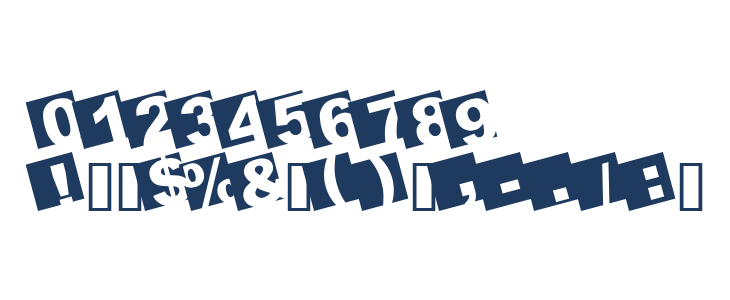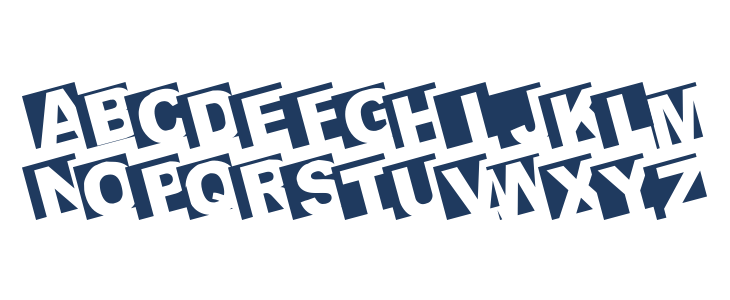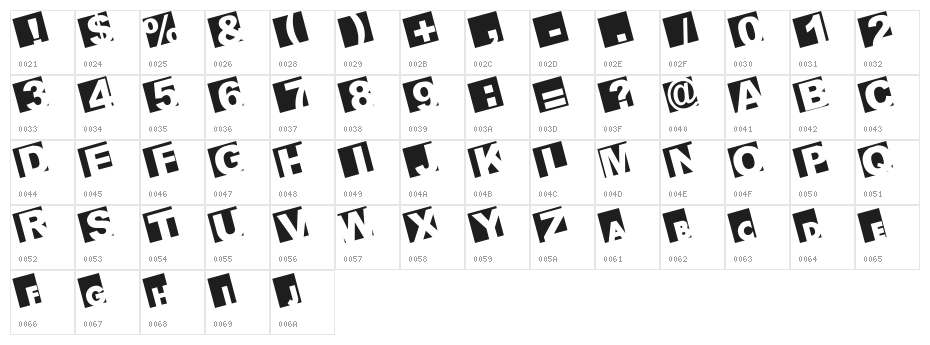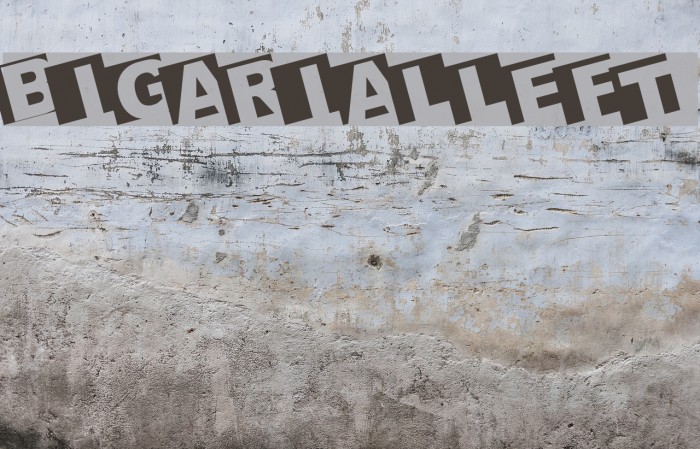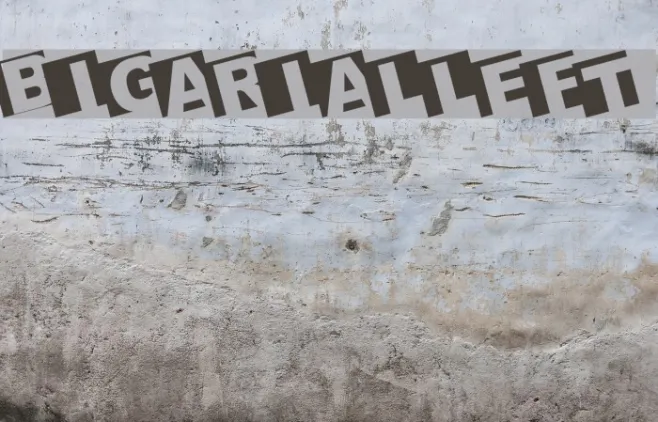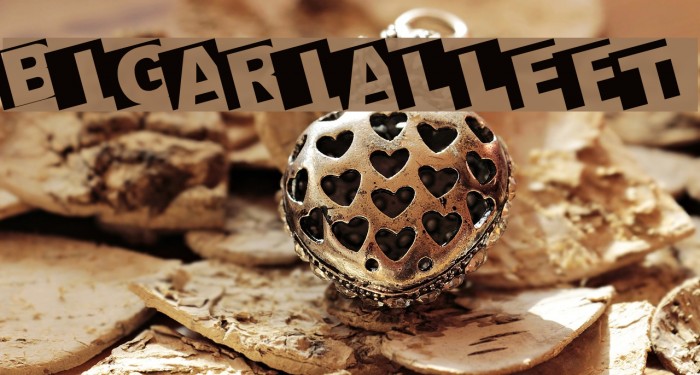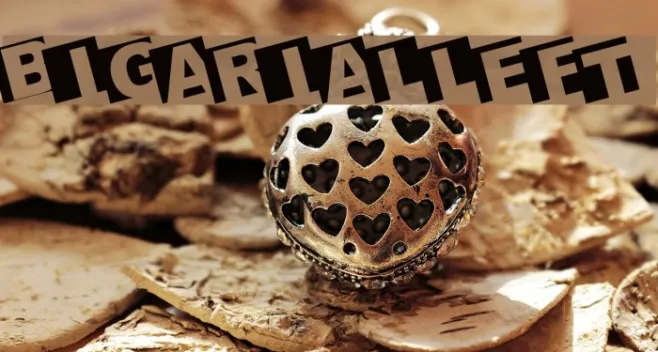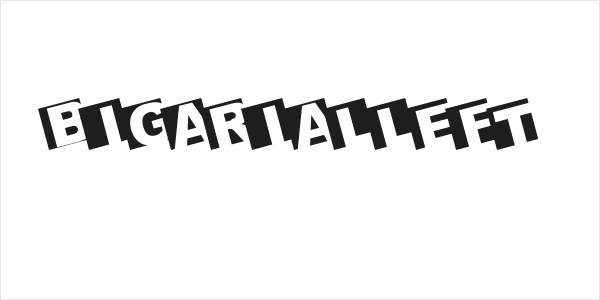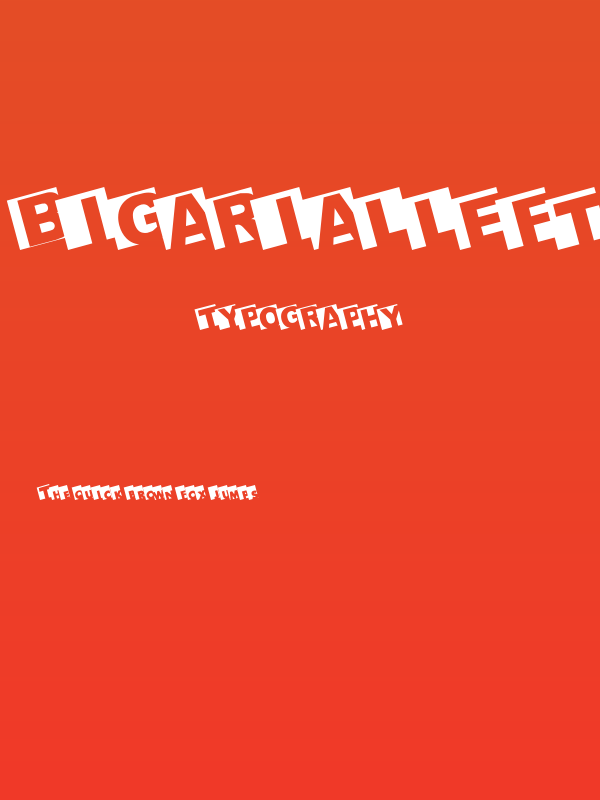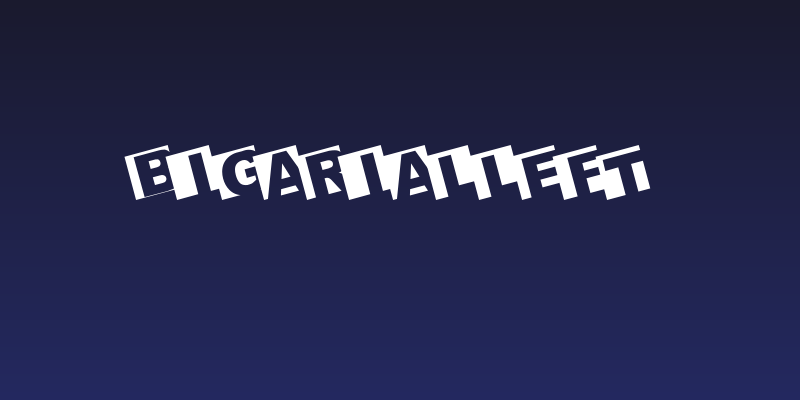
BIGARIALLEFT Font
BIGARIALLEFT Description
This bold and dynamic font features a striking design with letters that appear to be sliced diagonally, creating a sense of movement and energy. The characters are bold and heavily weighted, with a strong contrast between the thick black sections and the white negative spaces. The uppercase and lowercase letters maintain this unique style, while the numbers and special characters follow suit, ensuring consistency across the entire typeface. The font's distinct appearance makes it ideal for attention-grabbing designs.
| Proposed Projects | Ideal for posters, headlines, branding, and any project requiring a bold, eye-catching typeface. |